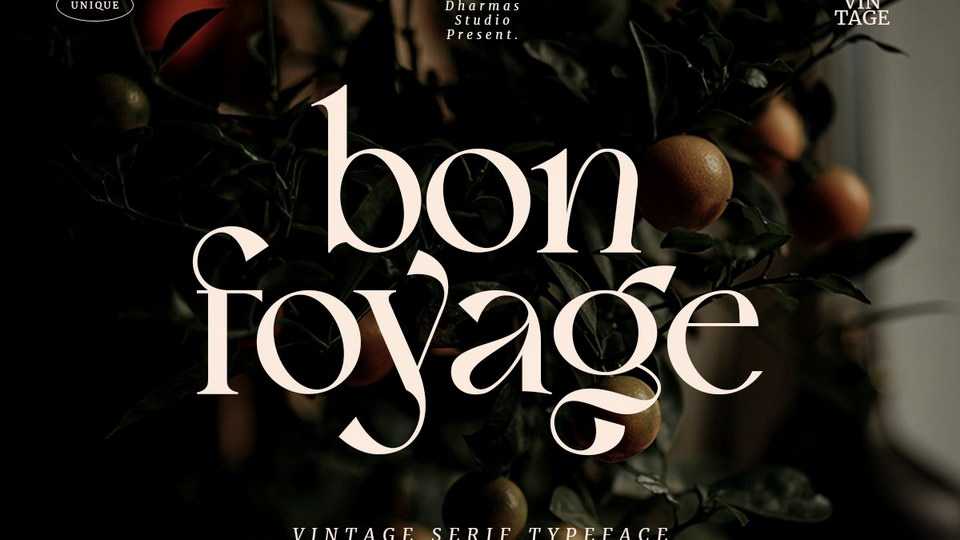
Download Bon Foyage font, a vintage modern serif typeface with unique letterforms. Bon Foyage is perfect for editorial projects, logo design, clothing branding, product packaging, magazine headers, or simply as a stylish text overlay to any background image.